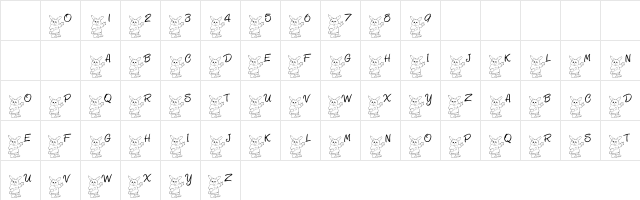
Complete 101! Bunny SayZ... Regular glyph index. Displaying only characters natively supported by 101! Bunny SayZ... Regular font.
101! Bunny SayZ... is a composed and adaptable typeface that performs quietly and consistently across a wide range of design contexts.